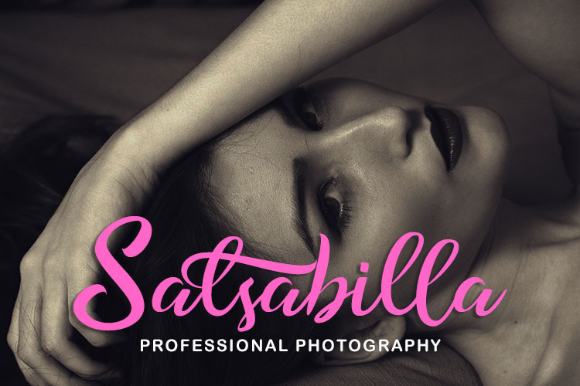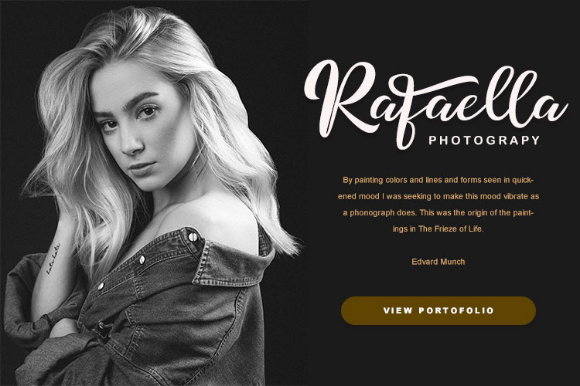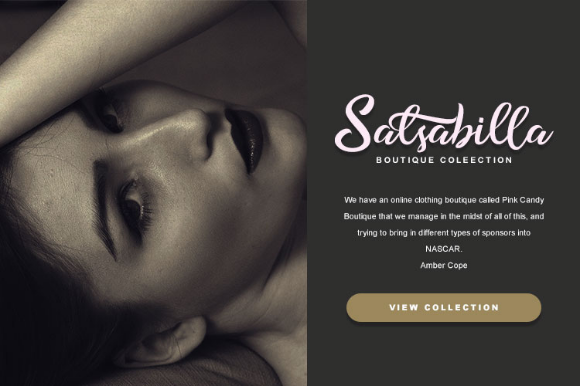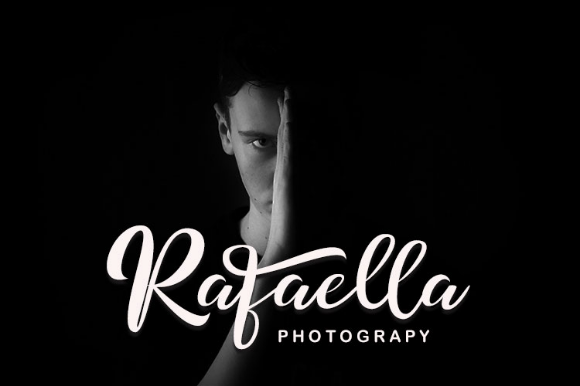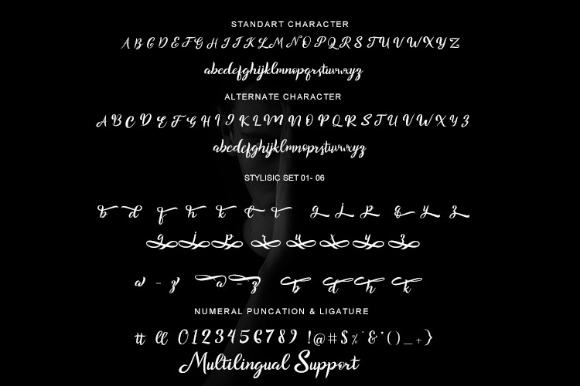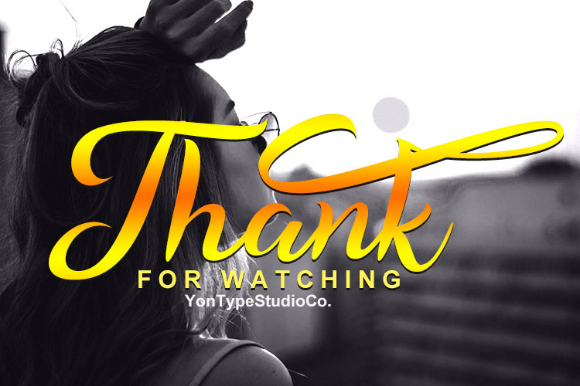
Introduction to Rindu Font
Have you ever been working on a creative project, pouring your heart and soul into it, and then, just as you’re about to finalize the design, you stumble upon the perfect font? For designers, this is a moment of pure bliss, and it can make all the difference in bringing a project to life. For those who are still searching for that special font, let us introduce you to the enchanting Rindu Font.
This elegant handwritten font is a treasure trove of inspiration, with its flowing lines and distinctive style that is sure to captivate your audience. Whether you’re working on a personal project or a commercial design, Rindu Font is the perfect design resource to elevate your creations to the next level. With its high-quality design and transparent background, you can be sure that your designs will stand out from the crowd.
Key Features of Rindu Font
- This elegant font features a transparent background, allowing for easy layering and customization.
- Rindu Font is a unique, handcrafted design that adds a touch of sophistication to any creative project.
- Its intricate details and ornate design elements make it an excellent choice for wedding invitations, branding materials, and other high-end designs.
Honest Review: Rindu Font
I recently had the opportunity to work with the Rindu Font for a creative project, and I must say I was quite impressed. As a designer, I’m always on the lookout for high-quality design resources that can elevate my work, and the Rindu Font definitely delivers.
One of the things that stands out about the Rindu Font is its versatility. The font is available for free download, making it an excellent choice for designers who are on a budget or just starting out. The font’s high quality is evident in its smooth lines and clear typography, making it perfect for a wide range of creative applications.
Here are some of the things that work well with the Rindu Font:
- ✨ High-quality typography
- ✨ Versatile and suitable for various creative projects
- ⚠️ Limited font styles and variations
Overall, I’m really impressed with the Rindu Font. Its high quality and versatility make it an excellent addition to any designer’s toolkit. While it may have some limitations, I think the benefits far outweigh the drawbacks.
Tips for Getting the Most Out of Rindu Font
To get the most out of Rindu Font, use it in conjunction with a high-quality image or design element. The transparent background of Rindu Font makes it easy to combine with other design elements. Experiment with different font sizes and colors to create a unique look for your creative project.
Rindu Font is ideal for use in a variety of creative projects, including logos, invitations, and social media graphics. Its high-quality design and transparent background make it a versatile design resource that can be used in a range of contexts.